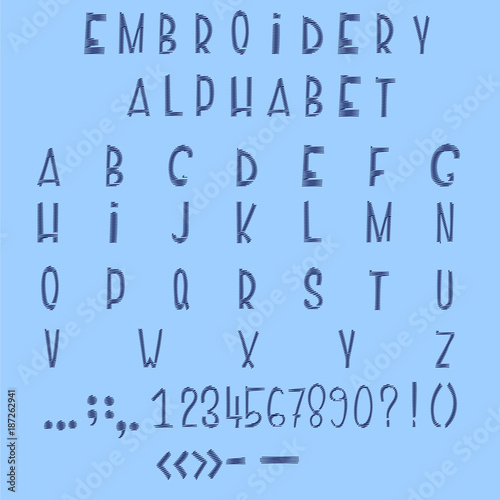
Embroidery blue font. Vector alphabet letters and numbers, punctuation marks. Isolated illustration on blue background. Crocheted, knitted vintage graphic elements. Thin line geometric set for design